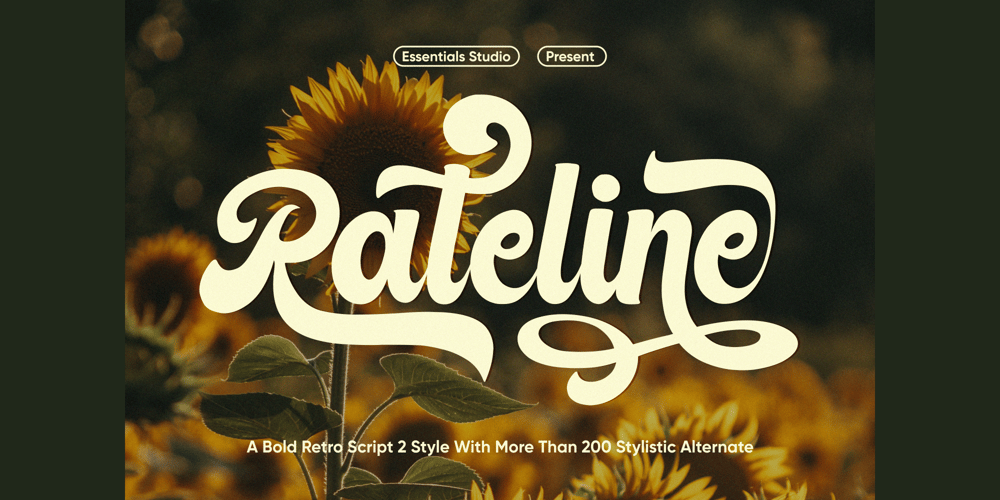
Rateline Font Family was designed by Bagus Panji Asmoro and published by Essentials Studio. Rateline contains 1 styles and family package options. Introducing by Essentials StudioProudly Present, Rateline Is a A Retro Font include 2 Style with 200+ Stylish alternateRateline is perfect for product packaging, branding project, megazine, social media, wedding, or just used to express words above the background.